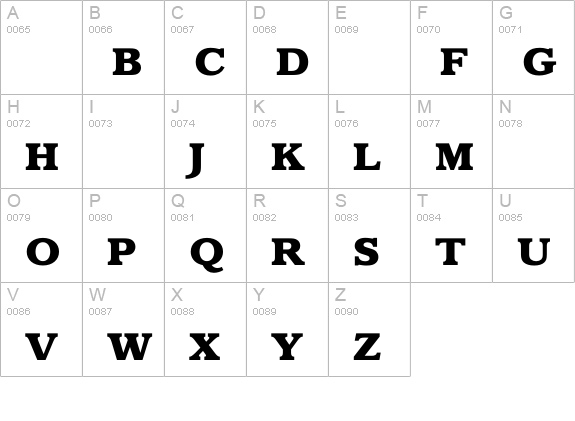
ClaremontExtraBold Font Details
ClaremontExtraBold is a striking and commanding font that exudes confidence and style. With its bold and impactful design, ClaremontExtraBold is perfect for making a statement and grabbing attention. The thick strokes and clean lines of this font give it a modern and contemporary look, making it ideal for various design projects. What sets ClaremontExtraBold apart is not just its visual appeal, but also its versatility. Whether you are designing a poster, a logo, a headline, or any other creative project, ClaremontExtraBold will help you achieve a bold and impactful result. And the best part? ClaremontExtraBold is free to download at FontsMarket.com. Now you can add this powerful font to your collection without any cost, making it even more accessible to designers and creators everywhere. Don't miss out on the opportunity to enhance your designs with ClaremontExtraBold - download it for free today!